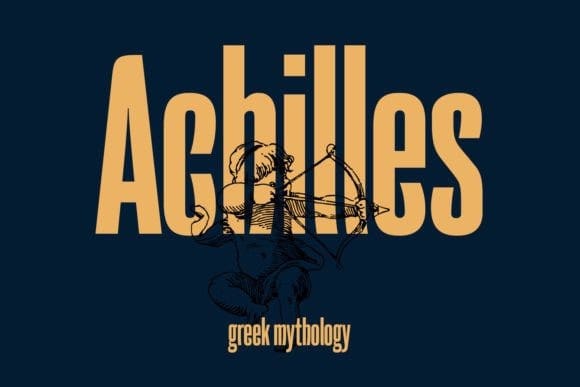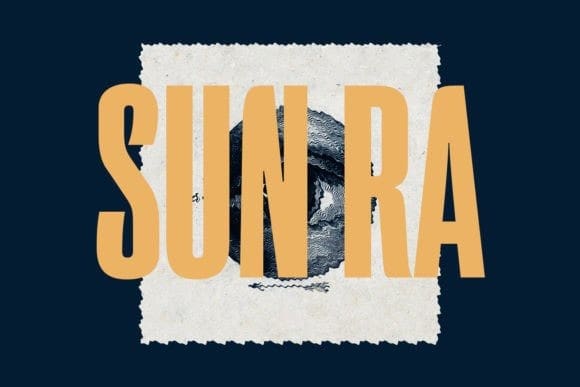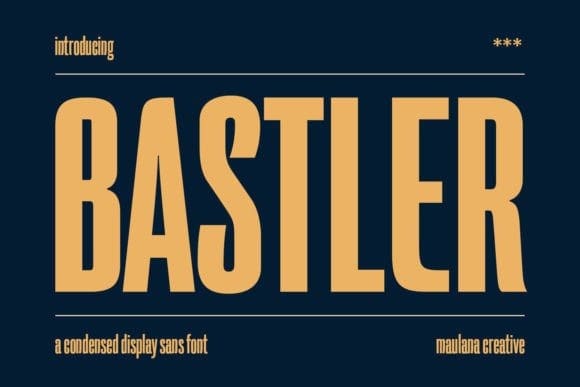
Bastler Font
Bastler Font is an attractive and vintage sans-serif font. Its classic, timeless lines, and retro-style lettering create a sense of old-world elegance and nostalgia that is perfect for adding a touch of vintage charm to your branding or typography.